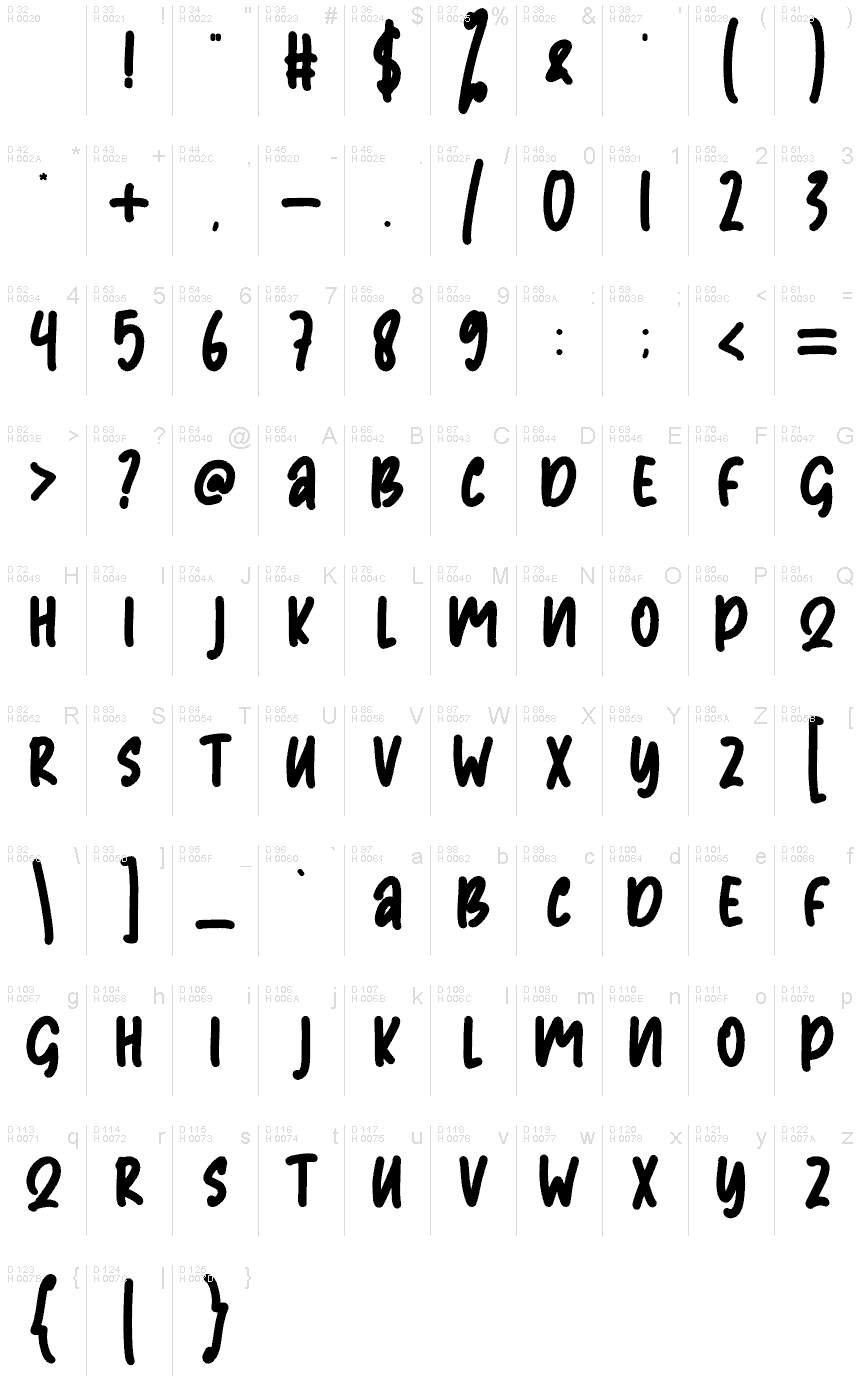
Bagya
Bagya font by Skiiller Studio is a free handwritten font with a rounded and expressive style. Its modern script letters have just the right dose of casual elegance and contemporary charm, which makes them suitable for loads of usages. Featuring creative flair, the font stays legible in even the smaller sizes and won’t affect readability when used in plenty of words.
Try Bagya in website designs, social media posts, blogging posts, books and movie titles compilations. The stylish typeface can also be incorporated into banners for websites or social media as well as heads up displays for apps or even books cover design.